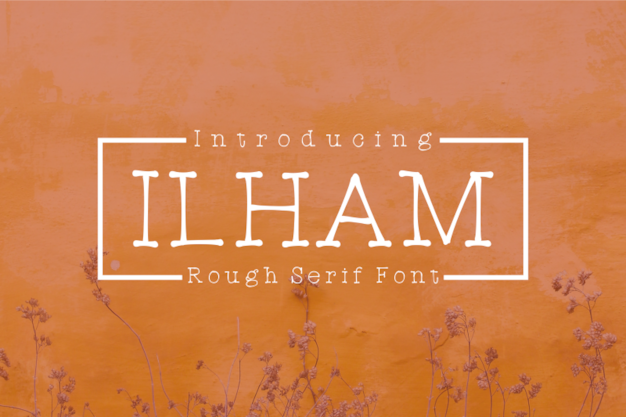
Ilham Font
It is a font that captures the essence of handmade charm. With its rustic and rough appearance, it exudes a sense of authenticity and simplicity. Each character feels like it's been sketched by hand, making it perfect for adding a touch of the artisan to your designs. Whether you're creating a homemade sign, a heartfelt message, or anything in between, "Ilham" brings a warm, welcoming, and down-to-earth vibe to your project.